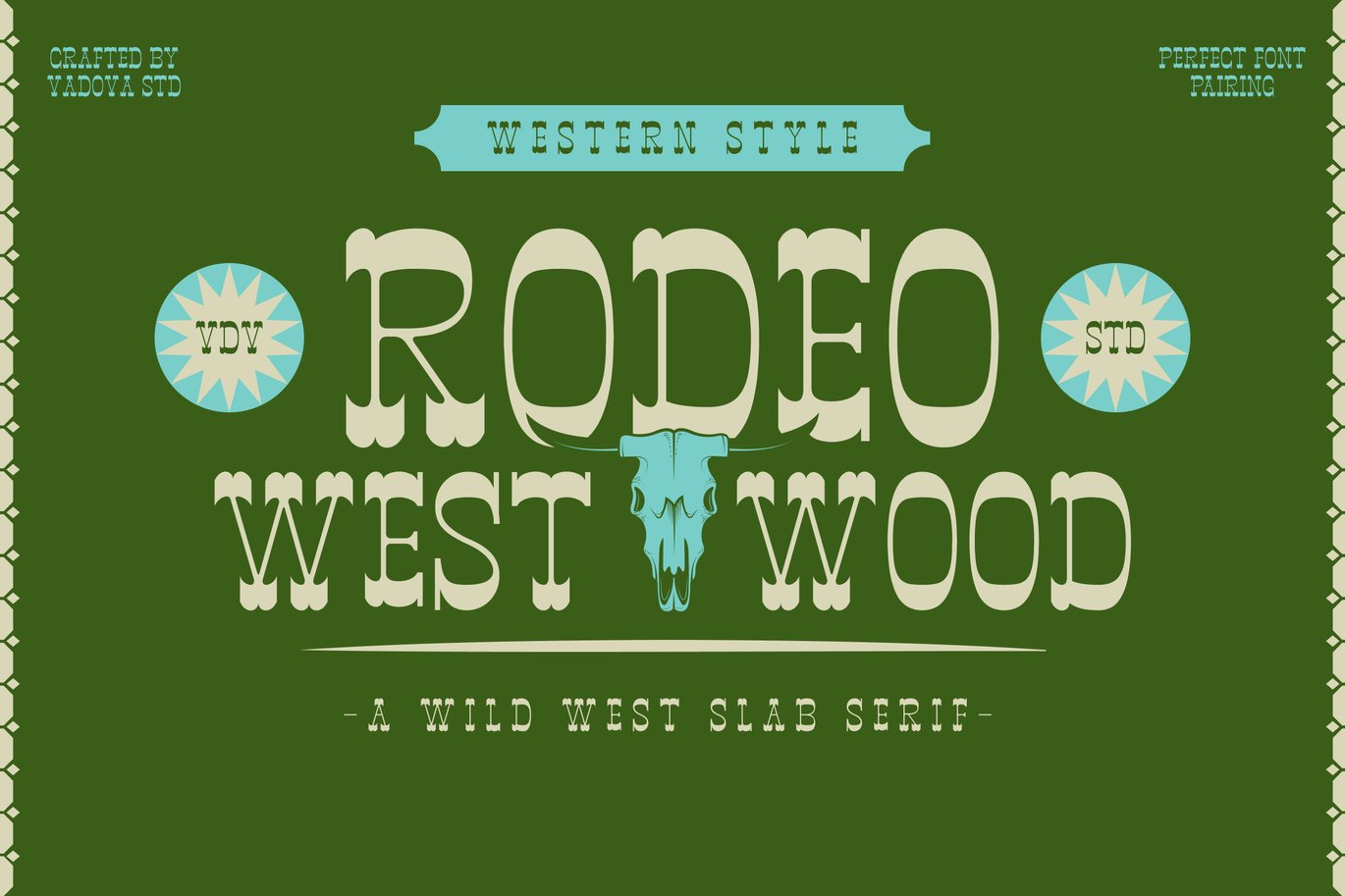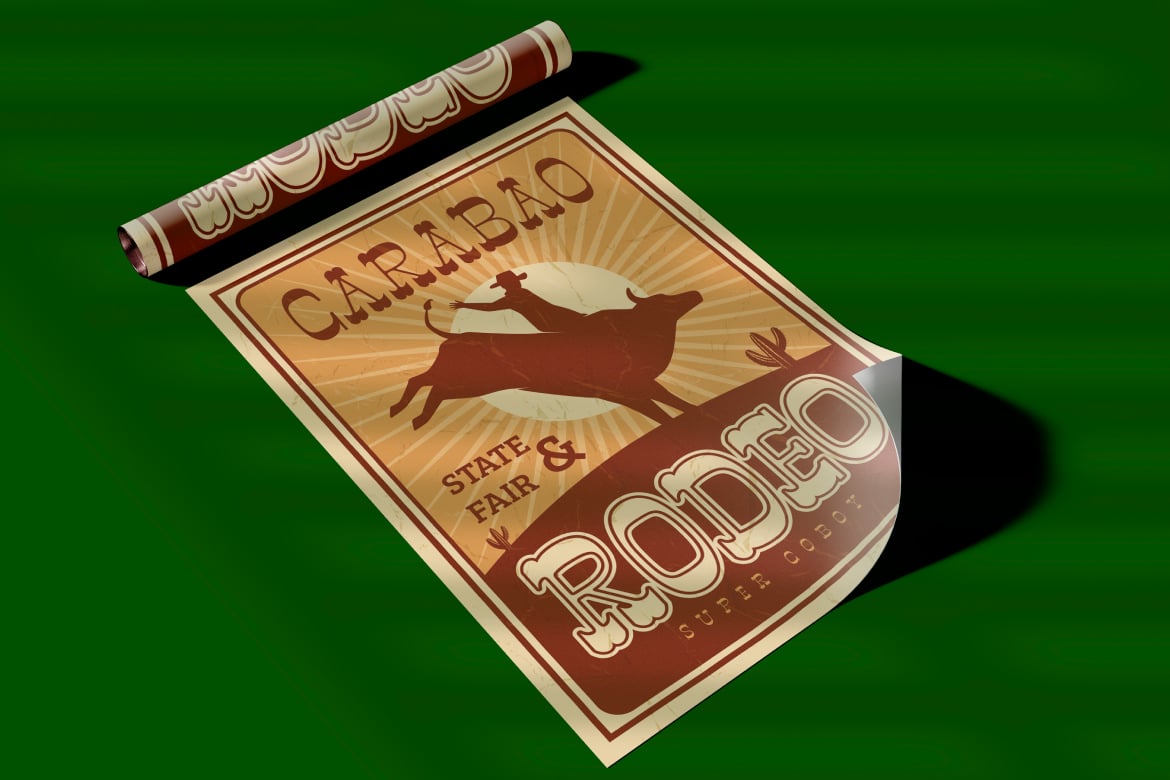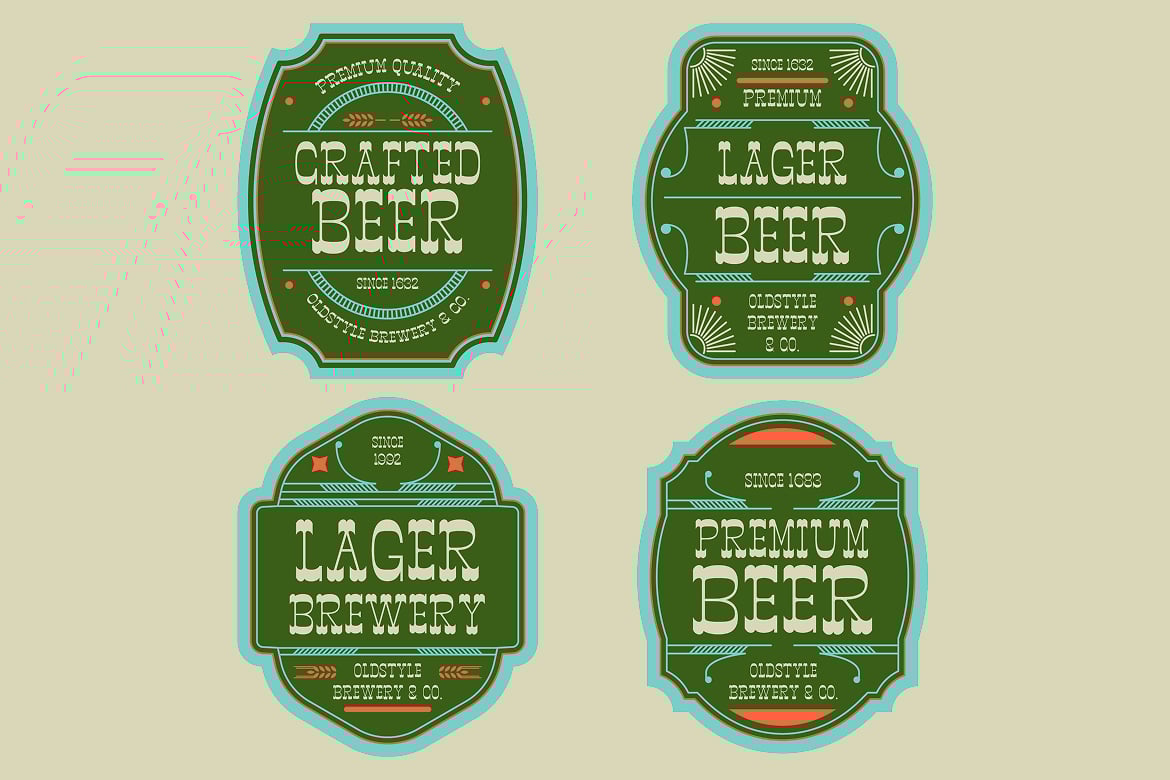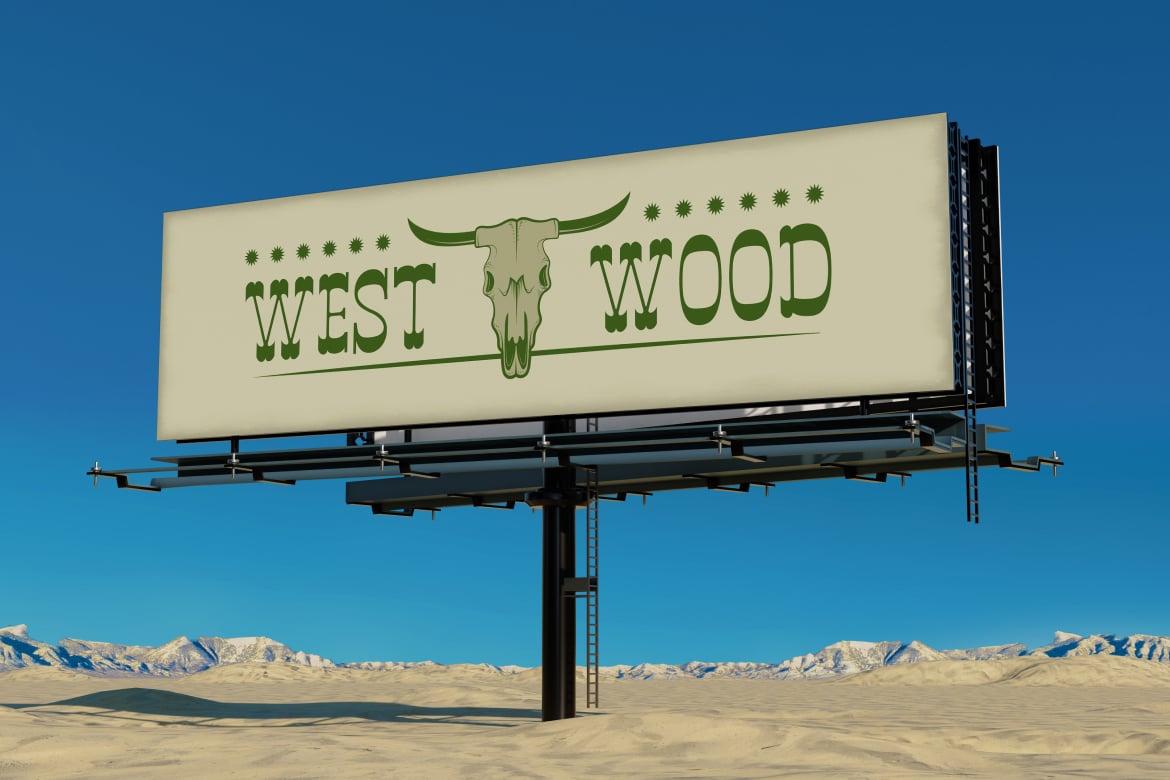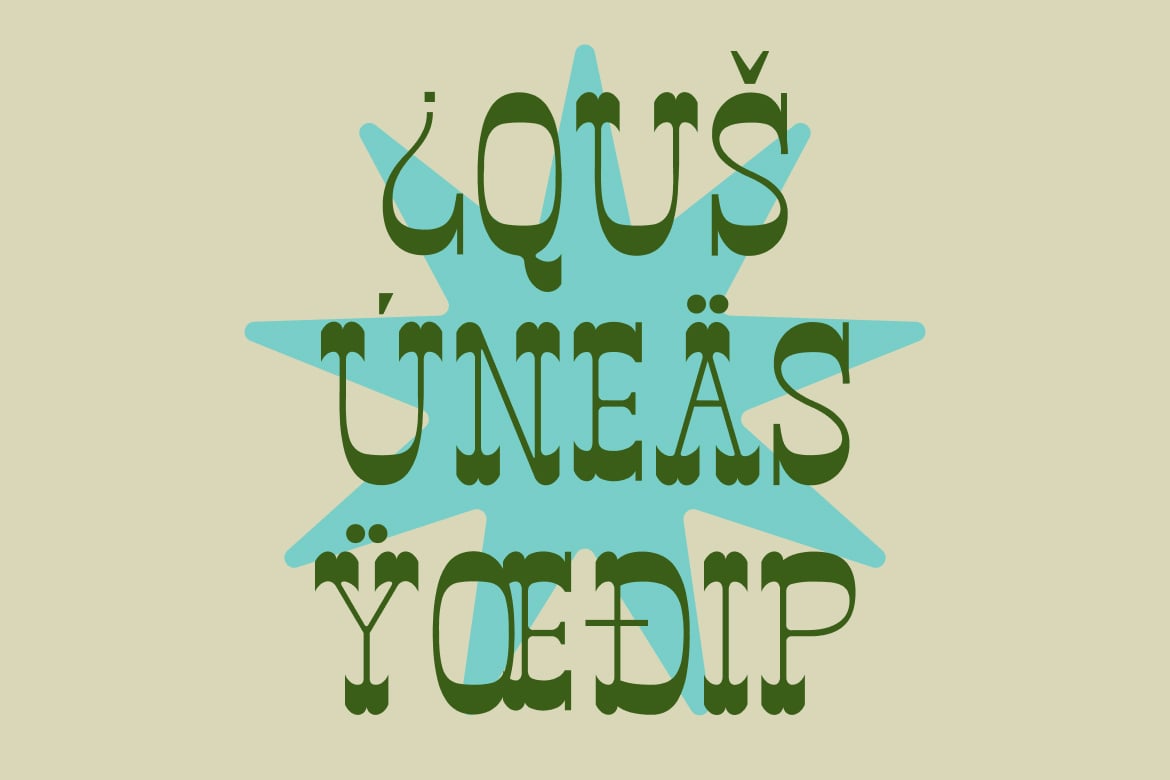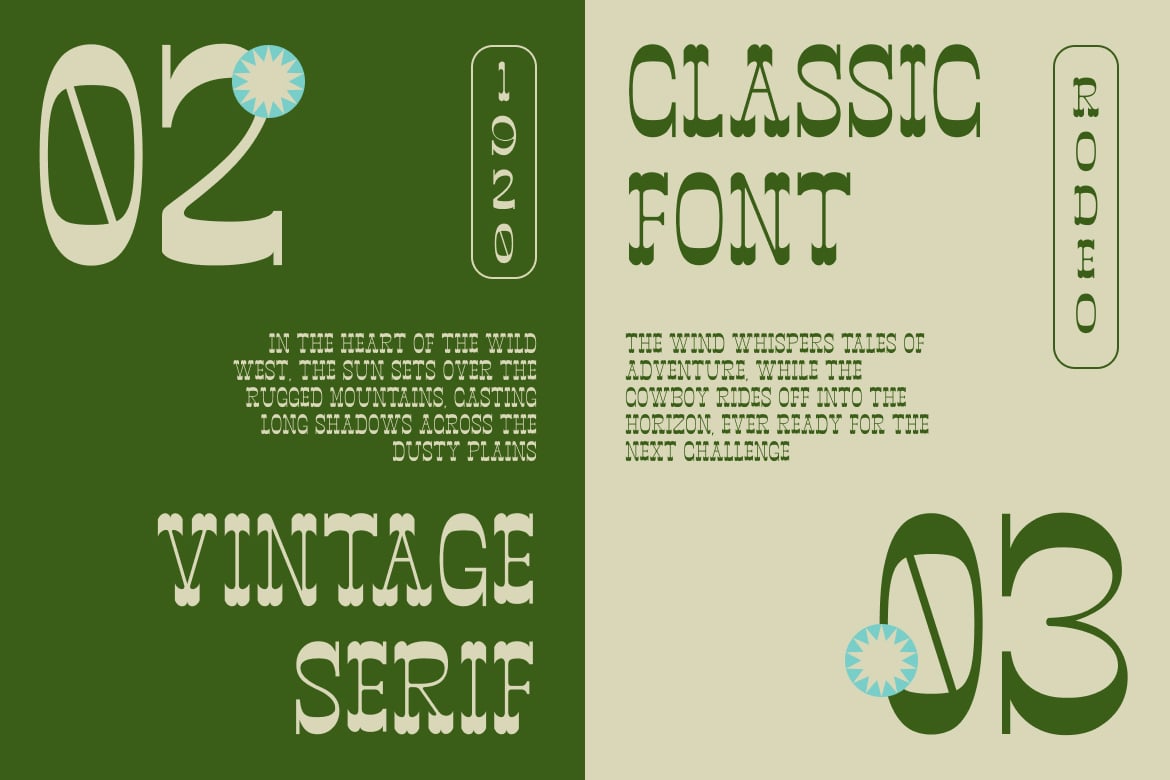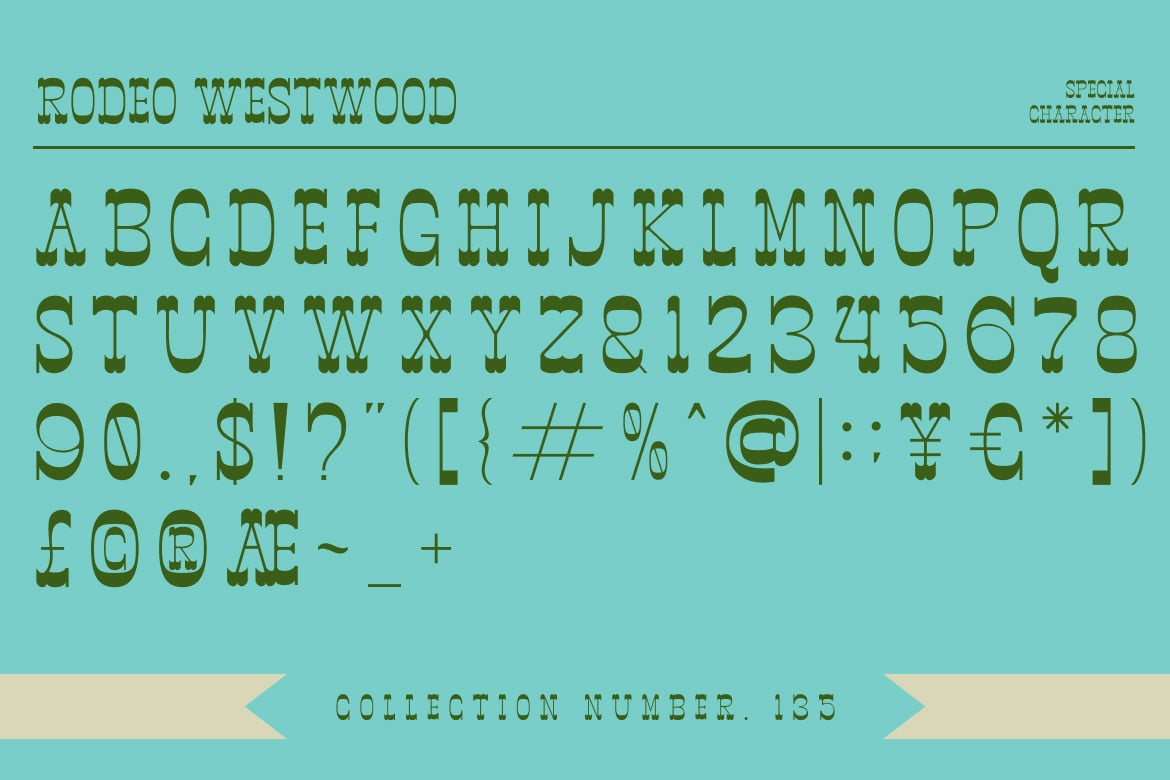
Rodeo Westwood Creative Font
Elevate your designs with Rodeo Westwood Creative Font, a bold Wild West-inspired slab serif font, perfect for western-themed designs, vintage branding, and rugged typography projects. This decorative typeface captures the spirit of the American frontier with its distinctive letterforms, making it ideal for posters, rodeo events, whiskey labels, saloon signage, and cowboy-style merchandise. With strong serifs and a classic western aesthetic, Rodeo Westwood brings the wild, adventurous essence of the Old West to any design.